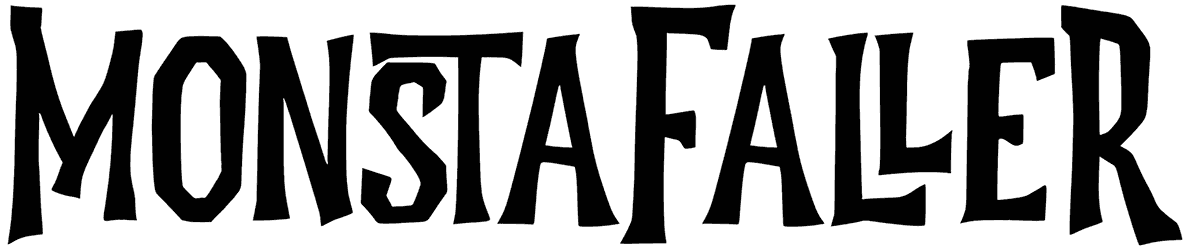
Monstafaller Font
This holiday font is perfect for projects aimed at children, such as commercials, textbooks, toy packaging, clothing, etc., thanks to its whimsical lettering and ornamentation. Use this font to save your boring pictures and make them more interesting.
No time should be wasted in installing the Halloween font, Monstafaller, despite the absence of lowercase letters and numerals. The fonts found at the RB are an excellent starting point for anyone wishing to add some cheer to their next task.